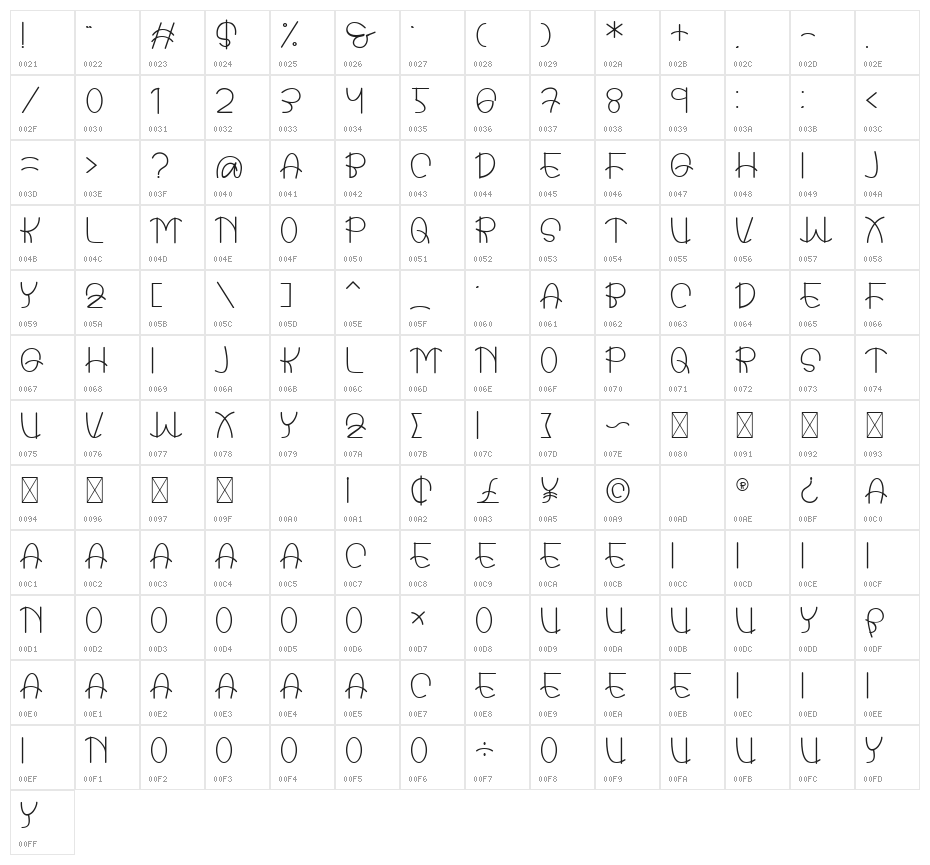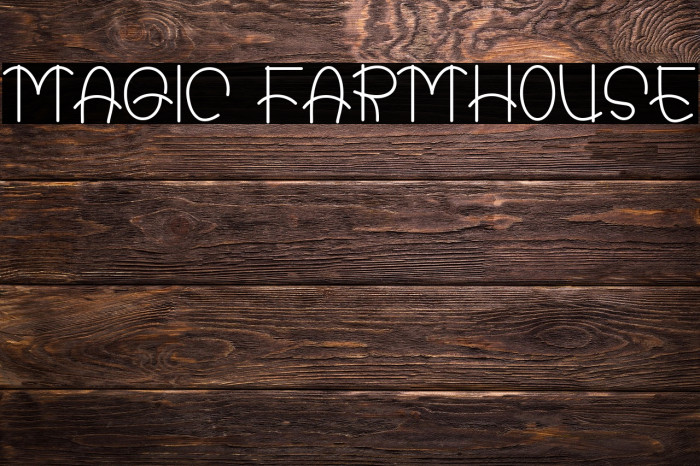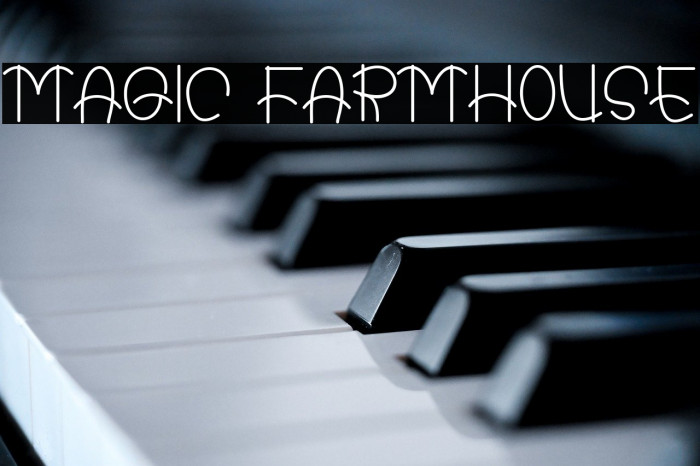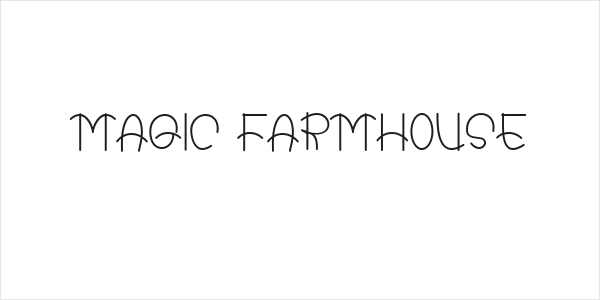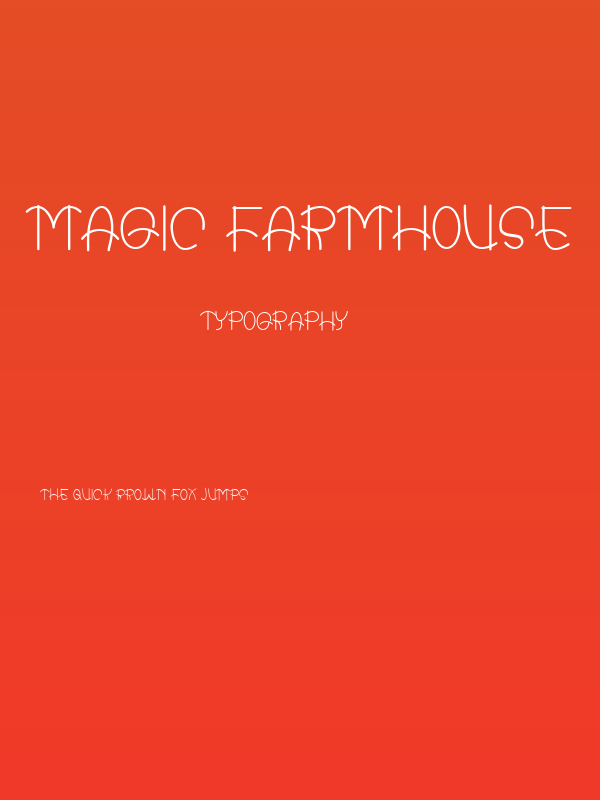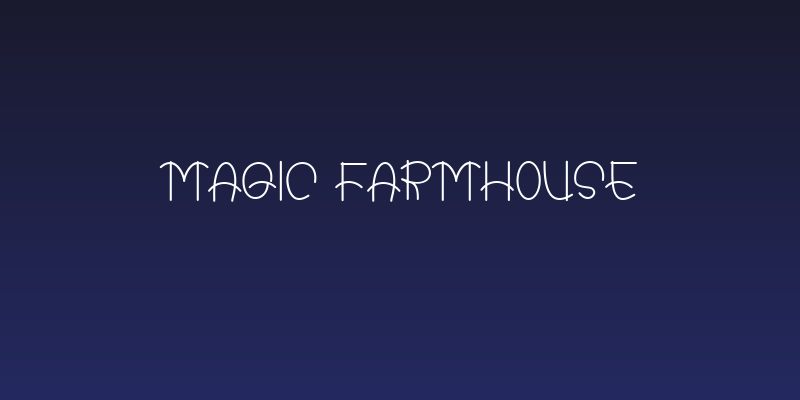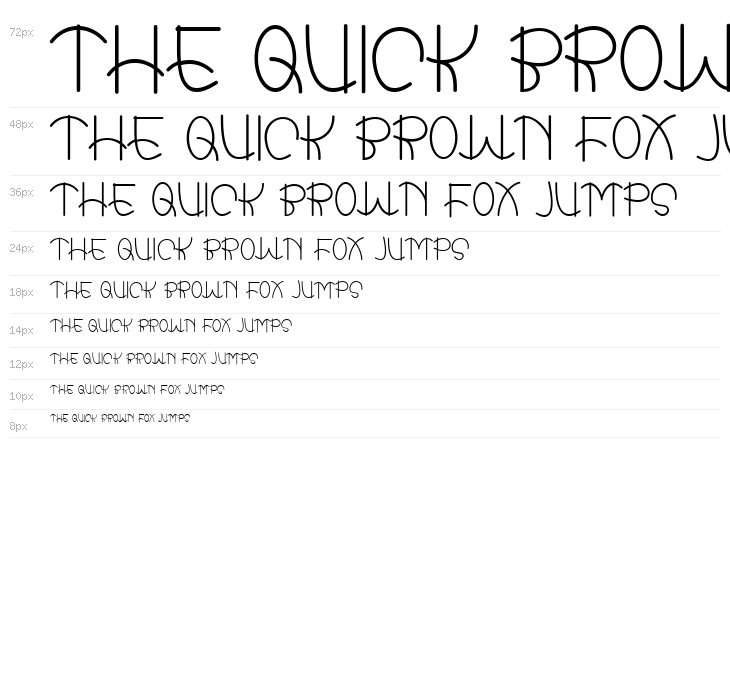
Magic Farmhouse Font
Magic Farmhouse Description
This font features a whimsical and playful design, characterized by its unique blend of simplicity and decorative elements. The letters are formed with clean, thin lines that curve gently, giving each character a distinctive, almost hand-drawn appearance. The uppercase and lowercase letters maintain a consistent style, with rounded edges and a slight flourish at the end of certain strokes, adding a touch of elegance. The numerals are similarly styled, ensuring uniformity across the font. Special characters are thoughtfully designed to match the overall aesthetic, making this font versatile for various creative applications.
| Overall Style | Playful, Whimsical |
| Use Case | Logos, Invitations, Creative projects |
| Proposed Projects | This font is perfect for children's book covers, playful branding, greeting cards, and whimsical invitations. |